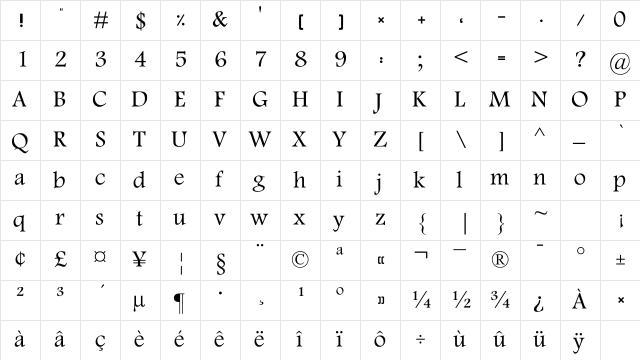
Motken K Elham Font Preview
Motken K Elham Motken K Elham
Design Context for Motken K Elham Typeface
Motken K Elham offers clean, dependable letterforms without strong stylistic allegiance, making it a practical choice for designers who need flexibility.